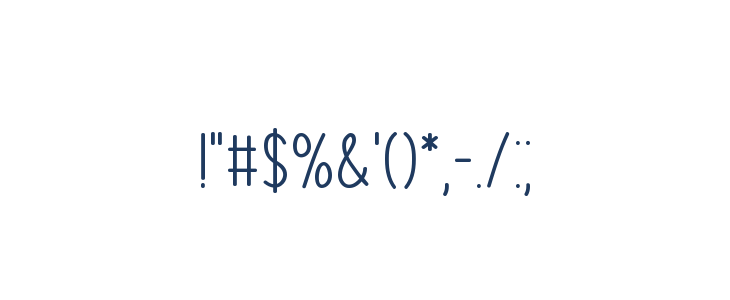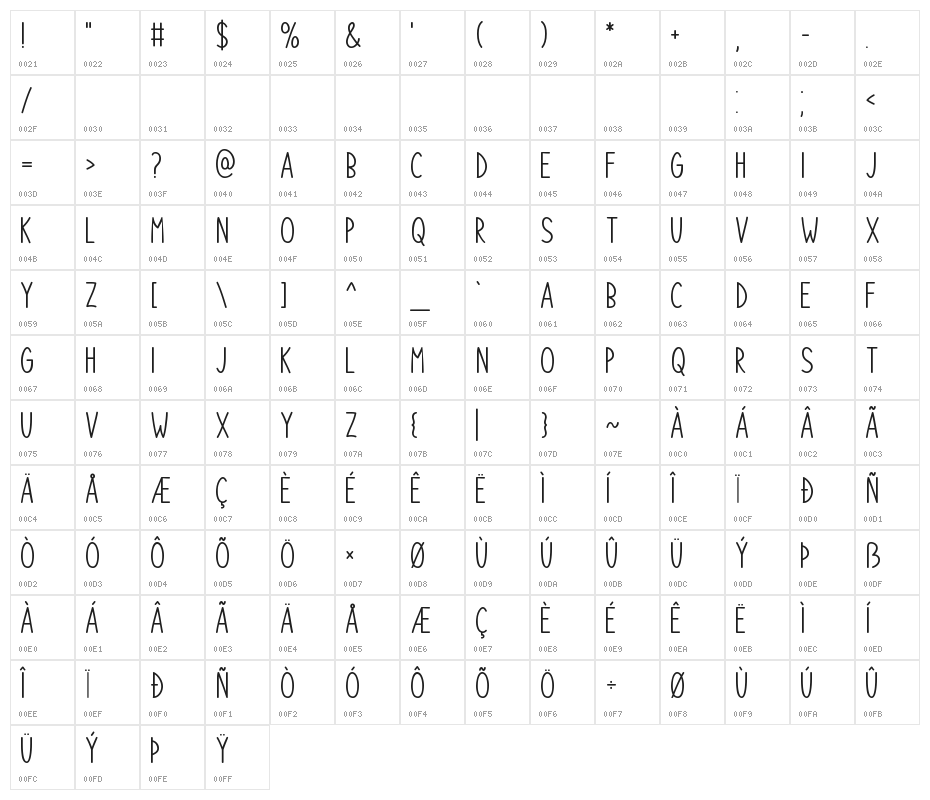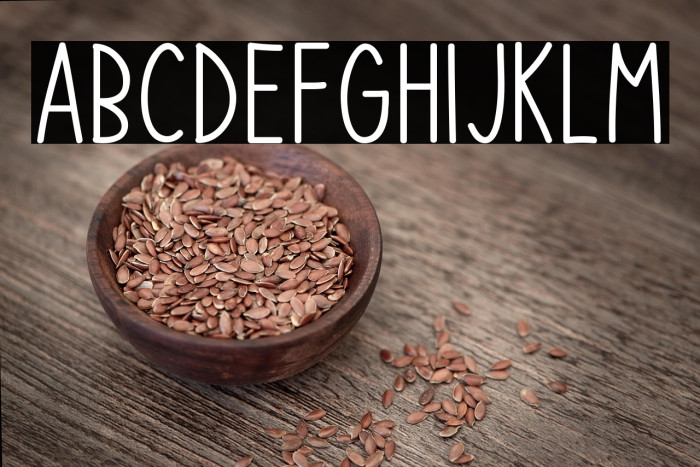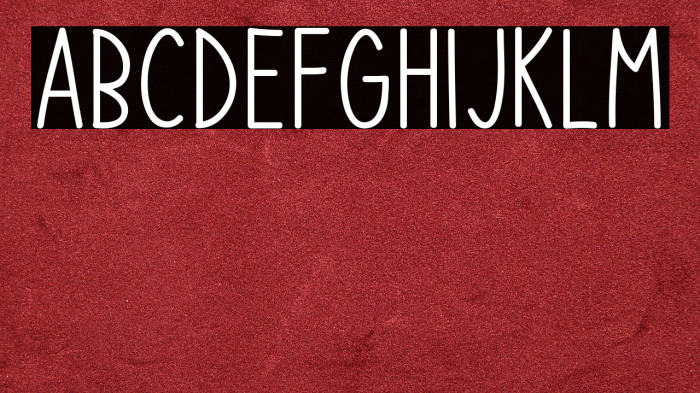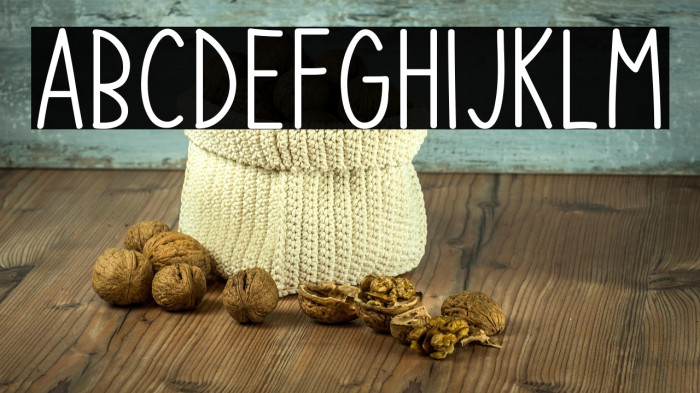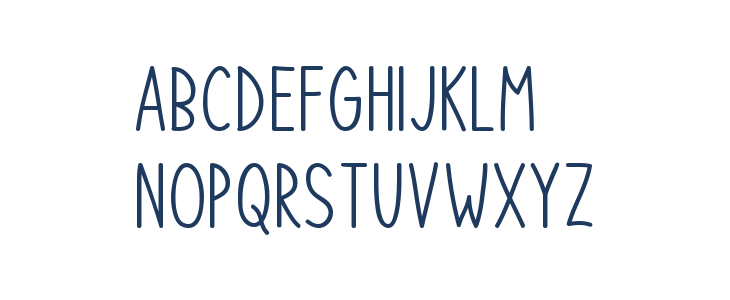
So Simple Font
So Simple Description
This font features a playful and casual handwritten style, characterized by its tall, narrow letters and slightly uneven strokes. The uppercase and lowercase letters maintain a consistent height, giving it a uniform appearance. The strokes are smooth and rounded, adding to its approachable and friendly feel. The spacing between characters is moderate, ensuring readability while maintaining its whimsical charm. This font is versatile, suitable for a variety of creative projects where a personal touch is desired.
| Width | Condensed |
| Overall Style | Casual |
| Use Case | Headlines, Logos, Informal Text |
| Proposed Projects | Ideal for greeting cards, children's books, casual invitations, and playful branding. |